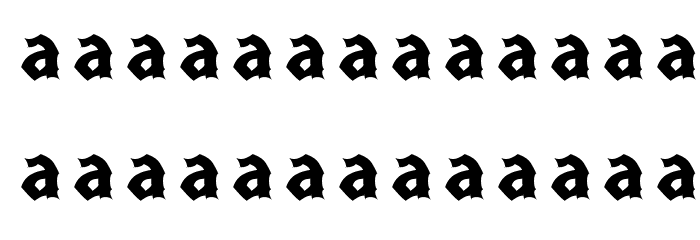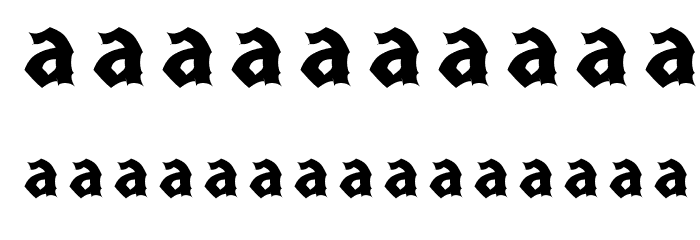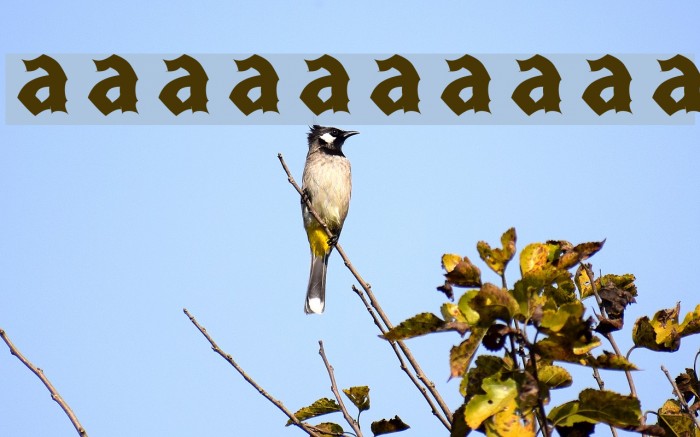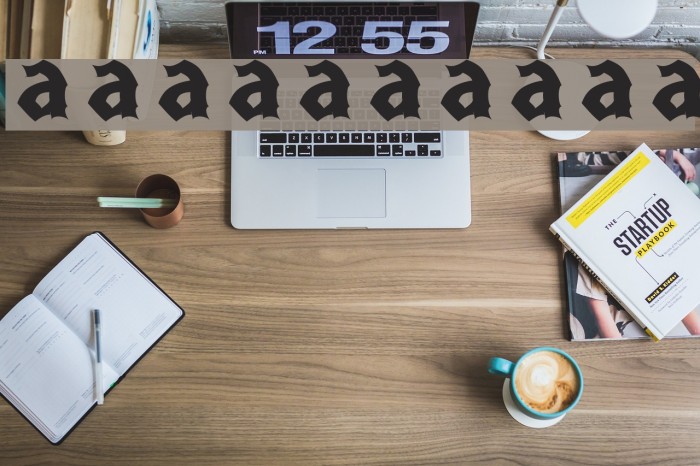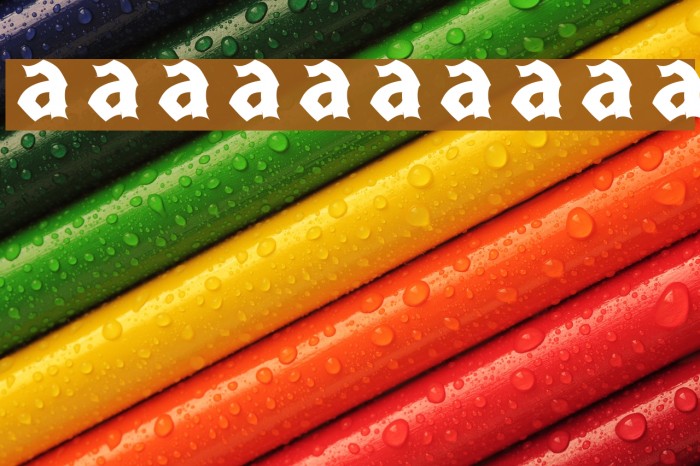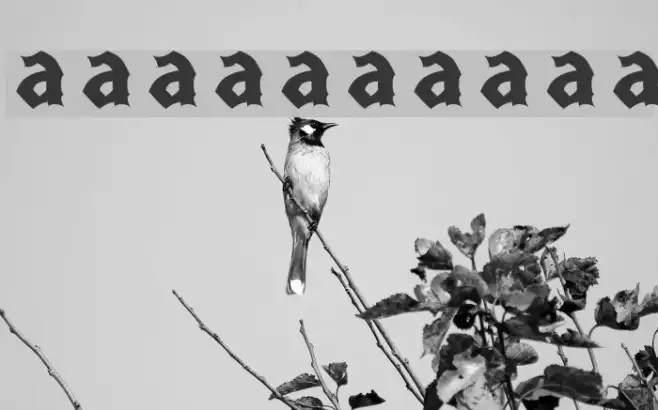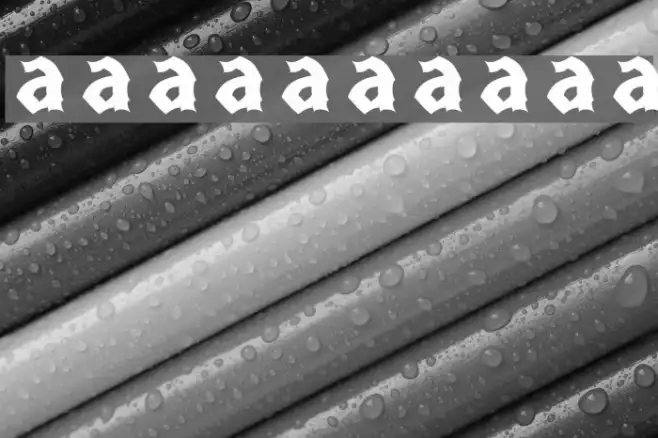
Bad-Hair-Day Font
This font features a bold and dramatic style with sharp, angular edges and a gothic influence. The characters are heavily stylized, giving them a unique and striking appearance. The design is reminiscent of medieval script, with a modern twist that adds a sense of edginess and flair. The bold strokes and high contrast between thick and thin lines create a dynamic visual impact, making it suitable for attention-grabbing headlines or artistic projects. The font's distinct personality makes it ideal for use in branding, posters, or any creative work that requires a touch of drama and sophistication.
A bold, gothic-inspired font with sharp, angular edges and high contrast.
- Proposed Projects: Ideal for branding, posters, album covers, and any creative project requiring a dramatic flair.
- Category: Blackletter
- Use Case: Headlines, Logos, Artistic projects